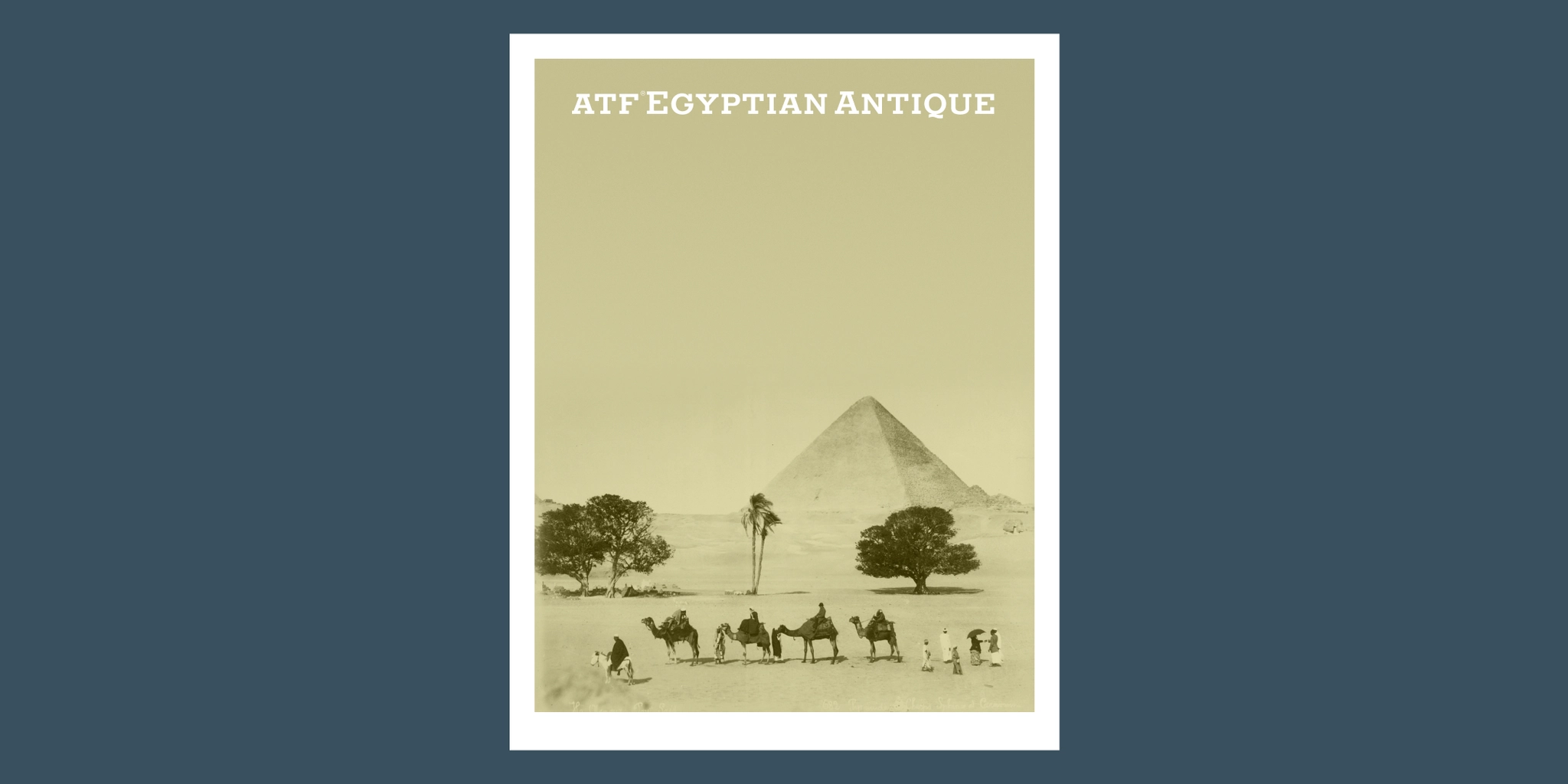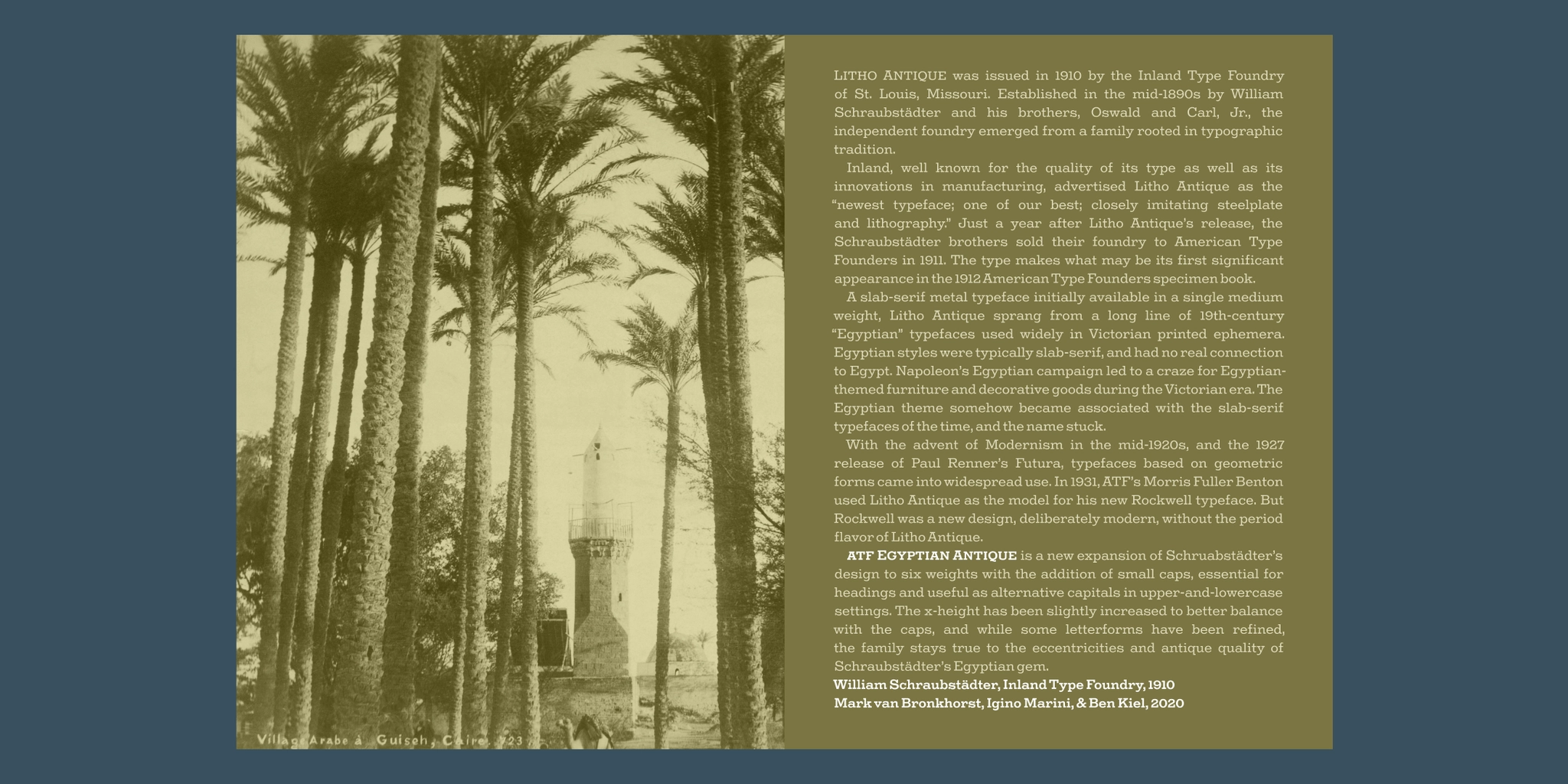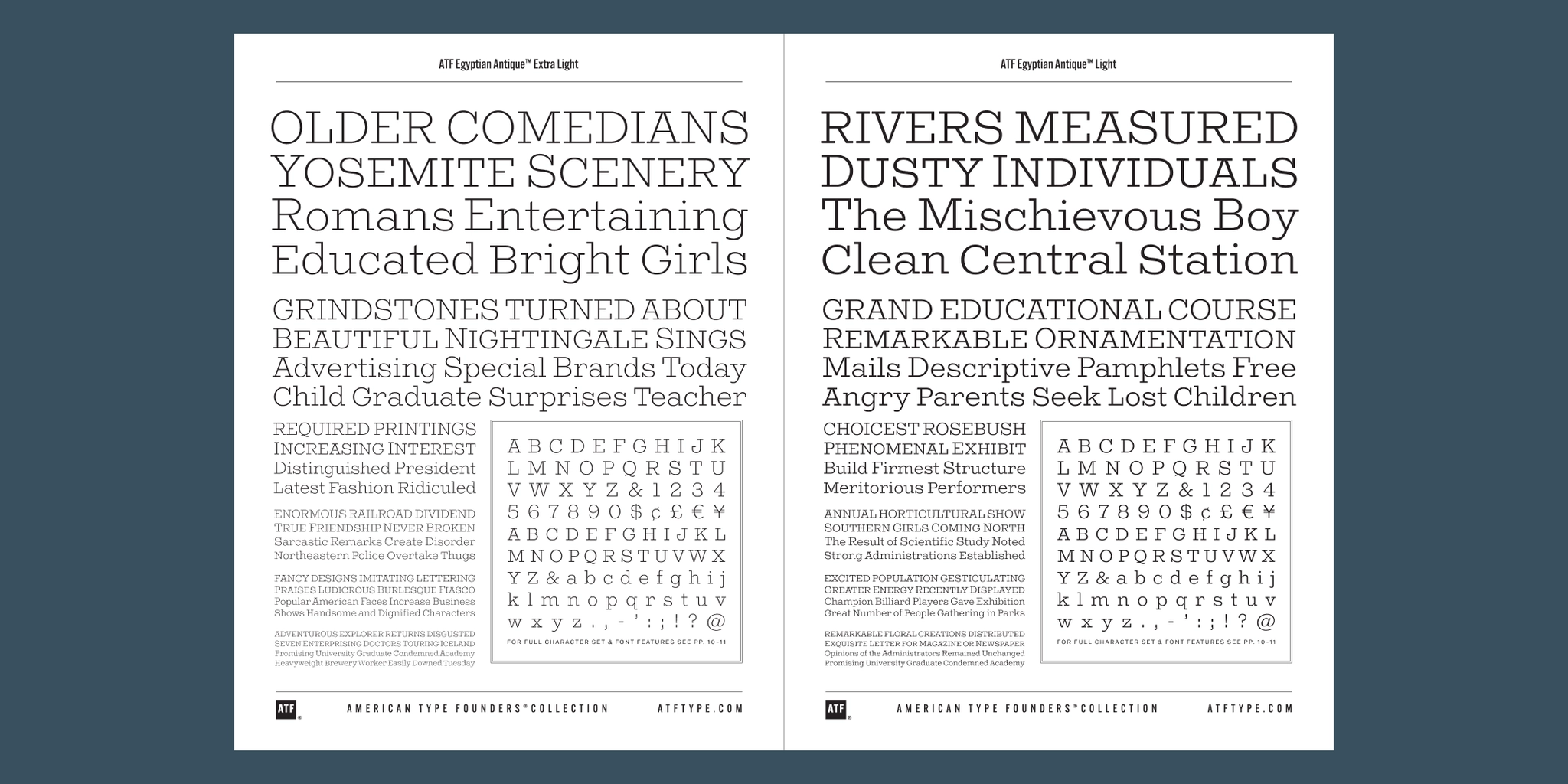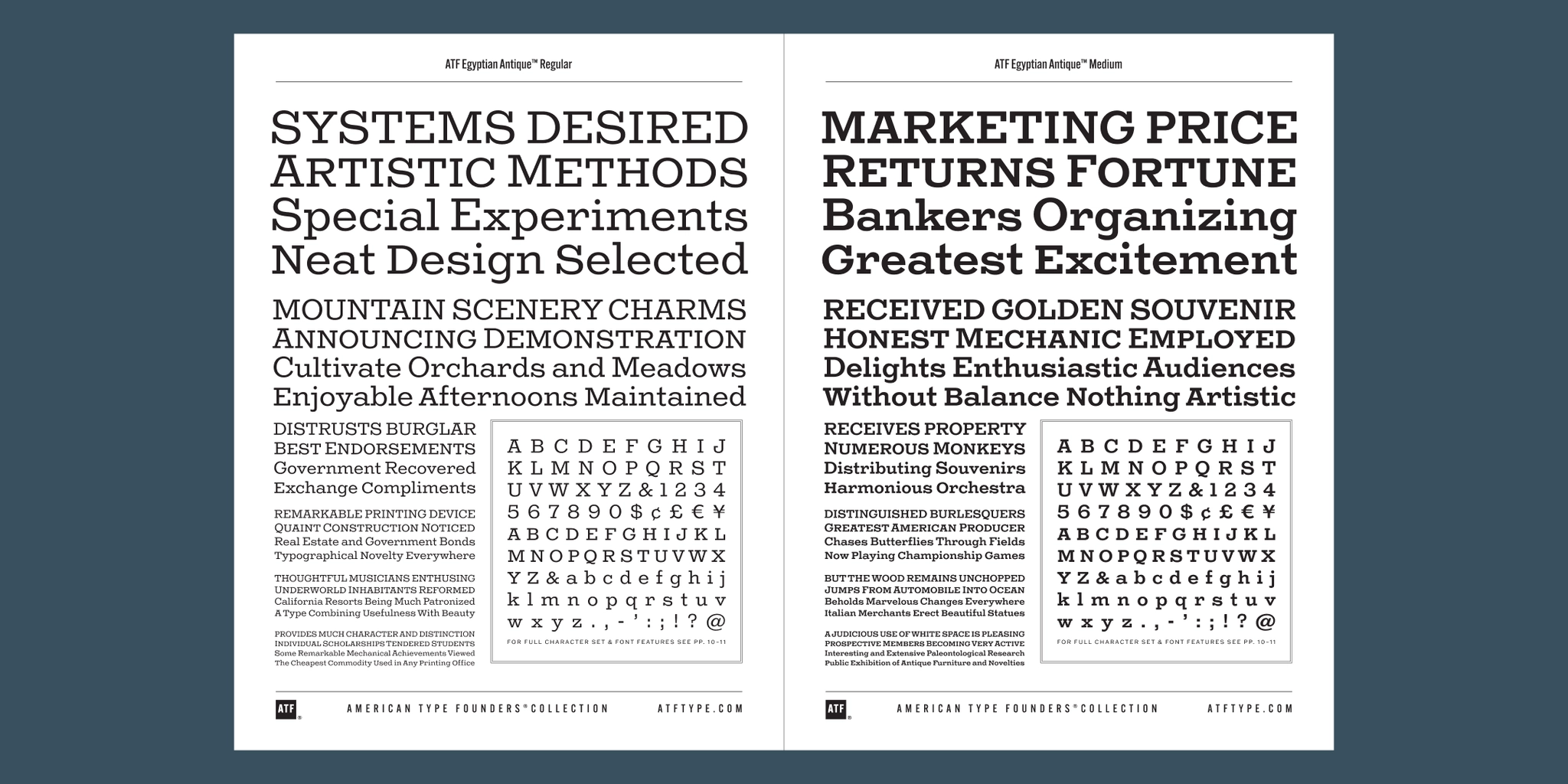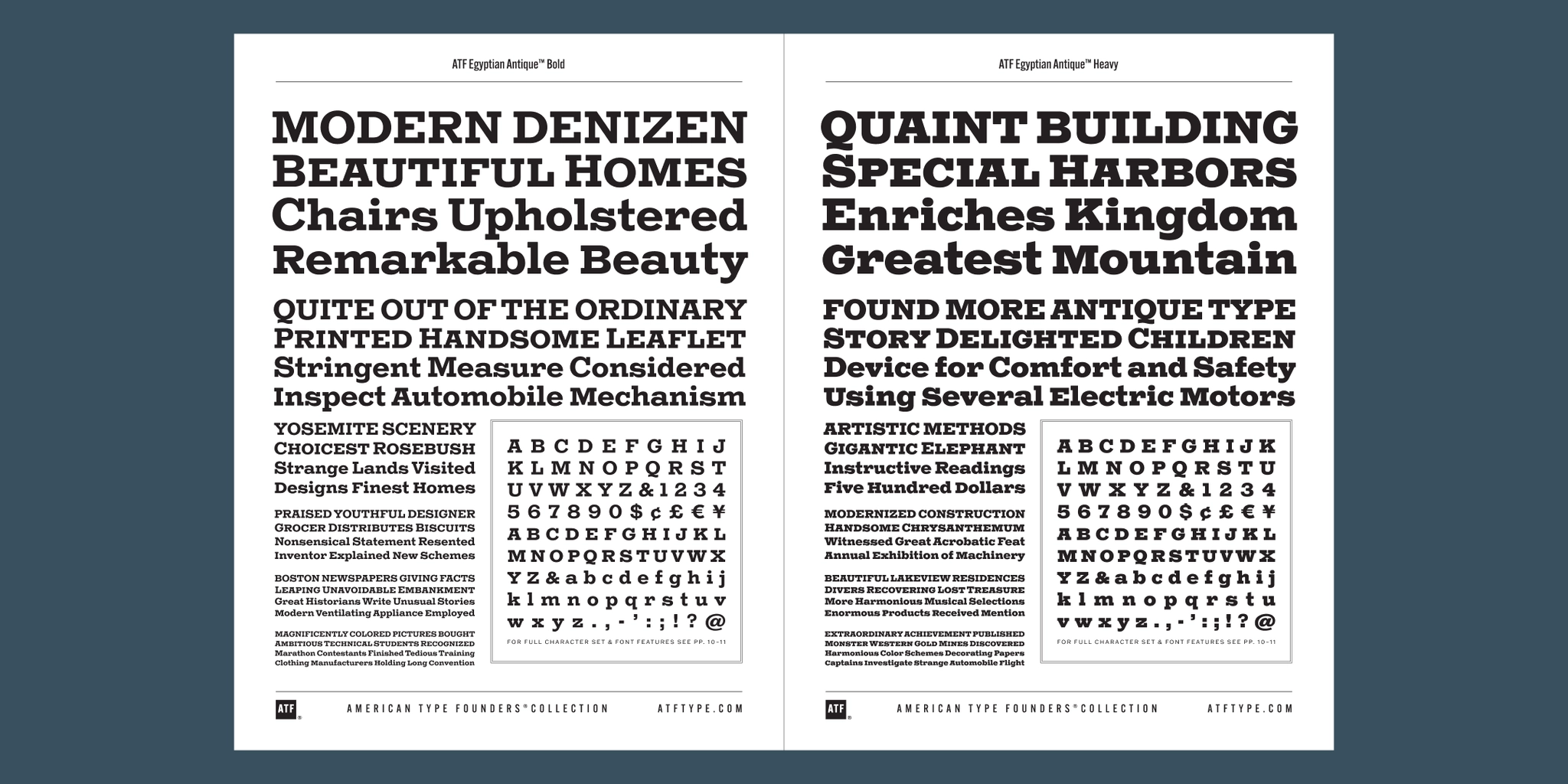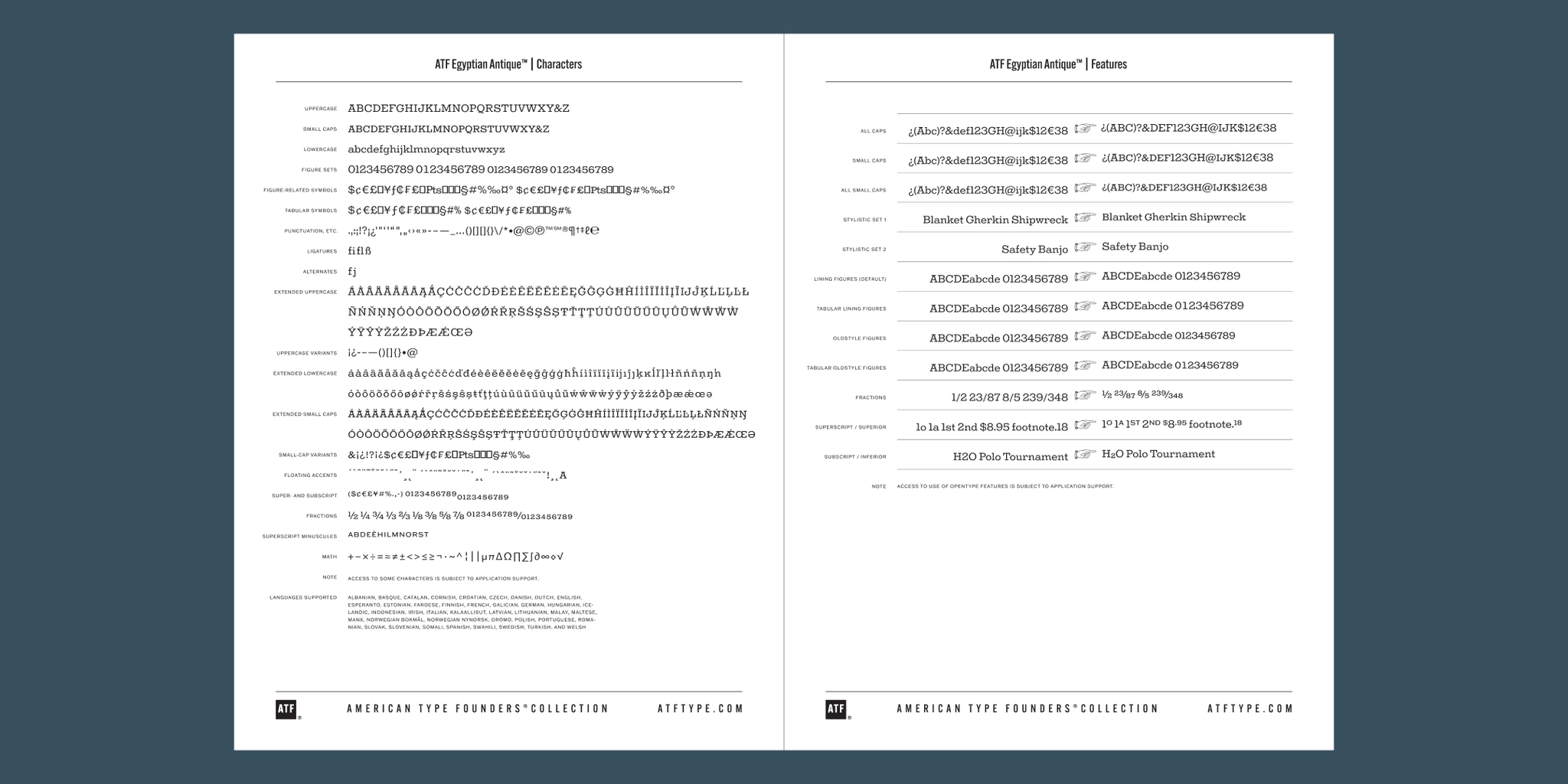
Egyptian Antique Font Family
Designed by William Schraubstädter, Mark Van Bronkhorst, Igino Marini, and Ben Kiel.
1910 and 2020.
The American Type Founders collection was developed by Mark van Bronkhorst.
Egyptian Antique is an industrial-age slab serif font family from a long line of Victorian faces. Ideal for statement-making headlines and branded content.
Litho Antique was issued in 1910 by the Inland Type Foundry of St. Louis, Missouri. Established in the mid-1890s by William Schraubstädter and his brothers, Oswald and Carl, Jr., the independent foundry emerged from a family rooted in typographic tradition.
Inland, well known for the quality of its type as well as its innovations in manufacturing, advertised Litho Antique as the “newest typeface; one of our best; closely imitating steelplate and lithography.” Just a year after Litho Antique’s release, the Schraubstädter brothers sold their foundry to American Type Founders in 1911. The type makes what may be its first significant appearance in the 1912 American Type Founders specimen book.
A slab-serif metal typeface initially available in a single medium weight, Litho Antique sprang from a long line of 19th-century “Egyptian” typefaces used widely in Victorian printed ephemera. Egyptian styles were typically slab-serif, and had no real connection to Egypt. Napoleon’s Egyptian campaign led to a craze for Egyptian-themed furniture and decorative goods during the Victorian era. The Egyptian theme somehow became associated with the slab-serif typefaces of the time, and the name stuck.
With the advent of Modernism in the mid-1920s, and the 1927 release of Paul Renner’s Futura, typefaces based on geometric forms came into widespread use. In 1931, ATF’s Morris Fuller Benton used Litho Antique as the model for his new Rockwell typeface. But Rockwell was a new design, deliberately modern, without the period flavor of Litho Antique.
ATF Egyptian Antique is an expansion of Schruabstädter’s design to six weights. A new feature is the addition of small caps, essential for headings and useful as alternative capitals in upper-and-lowercase settings. The x-height has been slightly increased to better balance with the caps, and while some letterforms have been refined, the family stays true to the eccentricities and antique quality of Schraubstädter’s Egyptian gem.